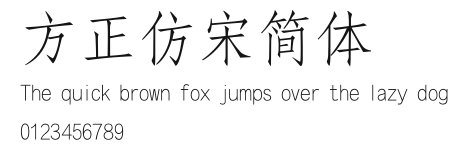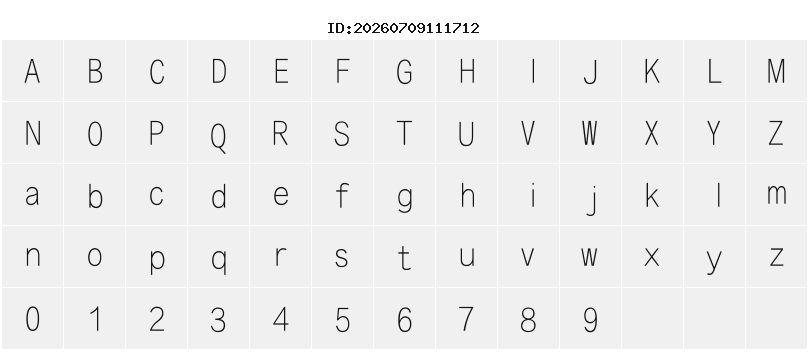
方正仿宋简体 Preview
• Font Name: 方正仿宋简体
• Font ID: Founder:方正仿宋简体 Regular
• Full Font Name: 方正仿宋简体
About 方正仿宋简体.TTF
方正仿宋简体.TTF is a modern, elegant sans-serif font designed for ultimate readability and visual harmony. Perfect for branding, headlines, web design, and print materials.